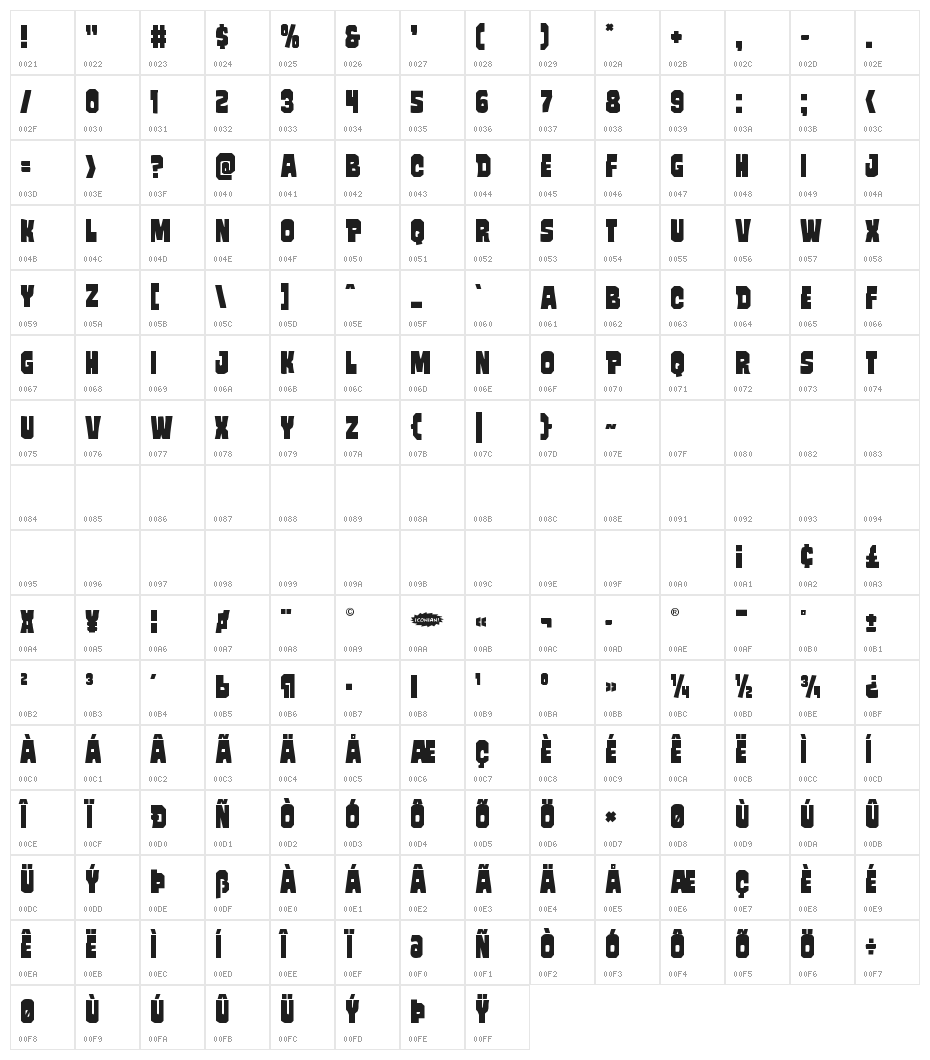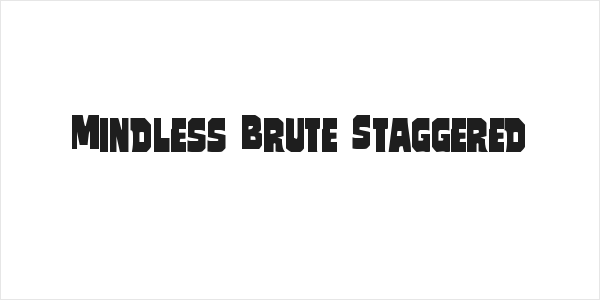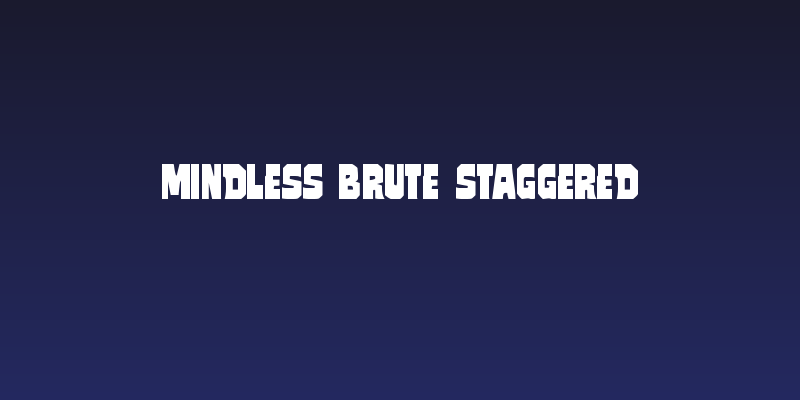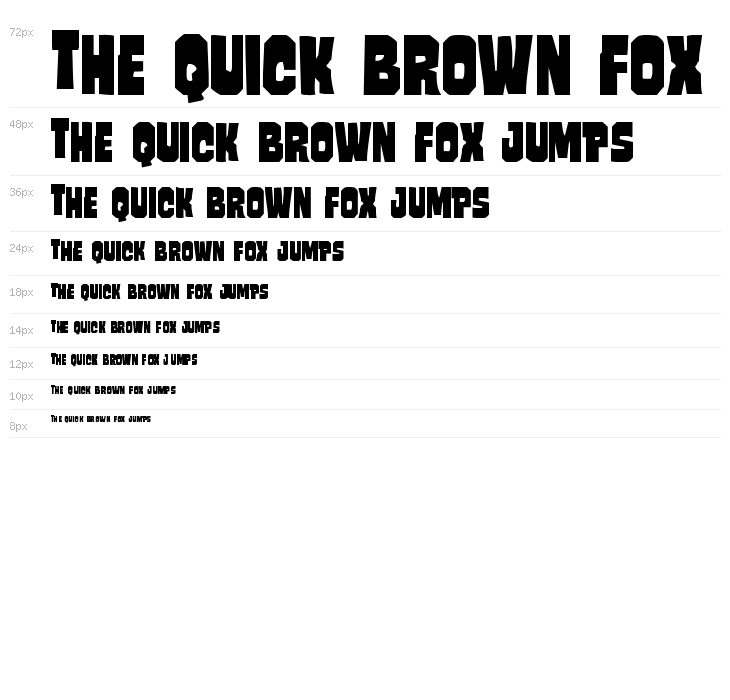
Mindless Brute Staggered Font
Mindless Brute Staggered Description
This font features a bold, heavy design with a staggered, blocky appearance. The characters are robust and have a strong presence, making them ideal for impactful headlines or attention-grabbing designs. The uppercase and lowercase letters maintain a consistent weight, while the numbers and special characters follow the same bold style. The font's unique staggered edges give it a distinctive, rugged look that stands out. Its geometric shapes and thick strokes contribute to a powerful visual impact, making it suitable for projects that require a bold statement.
| Proposed Projects | Ideal for posters, logos, branding, and any design requiring a strong, bold statement. |